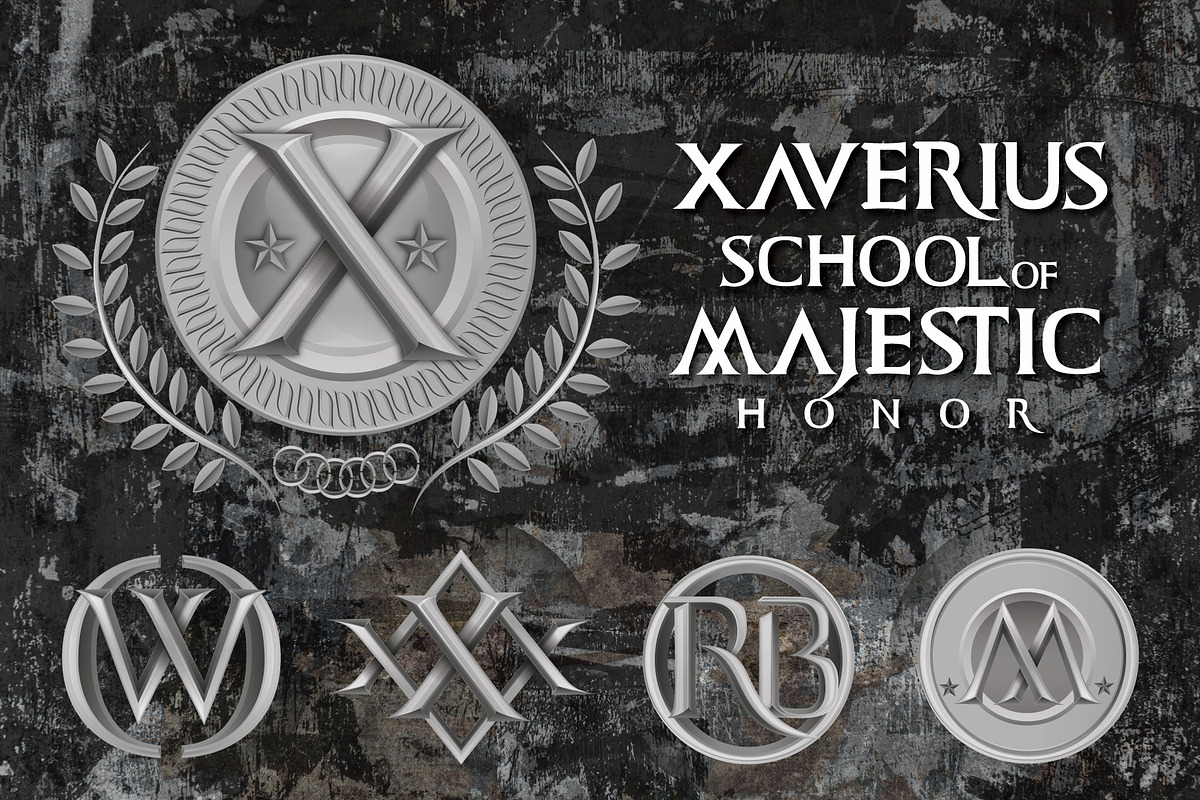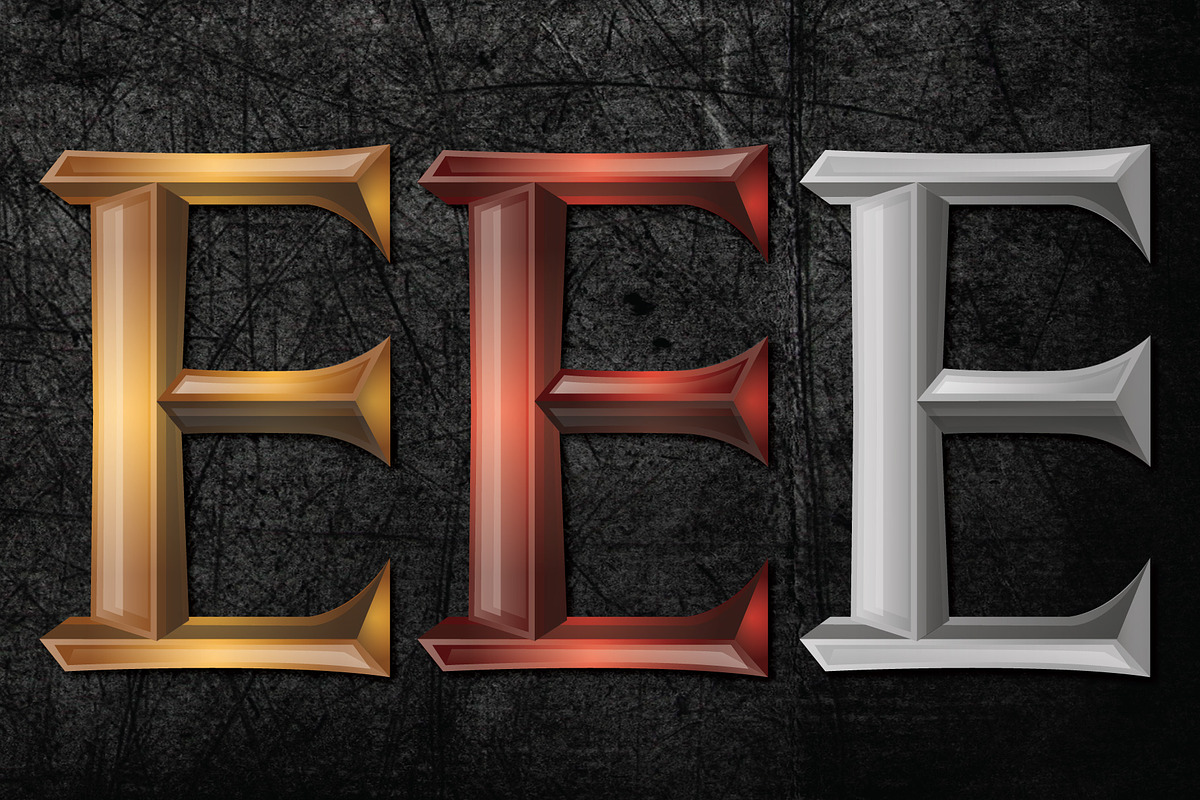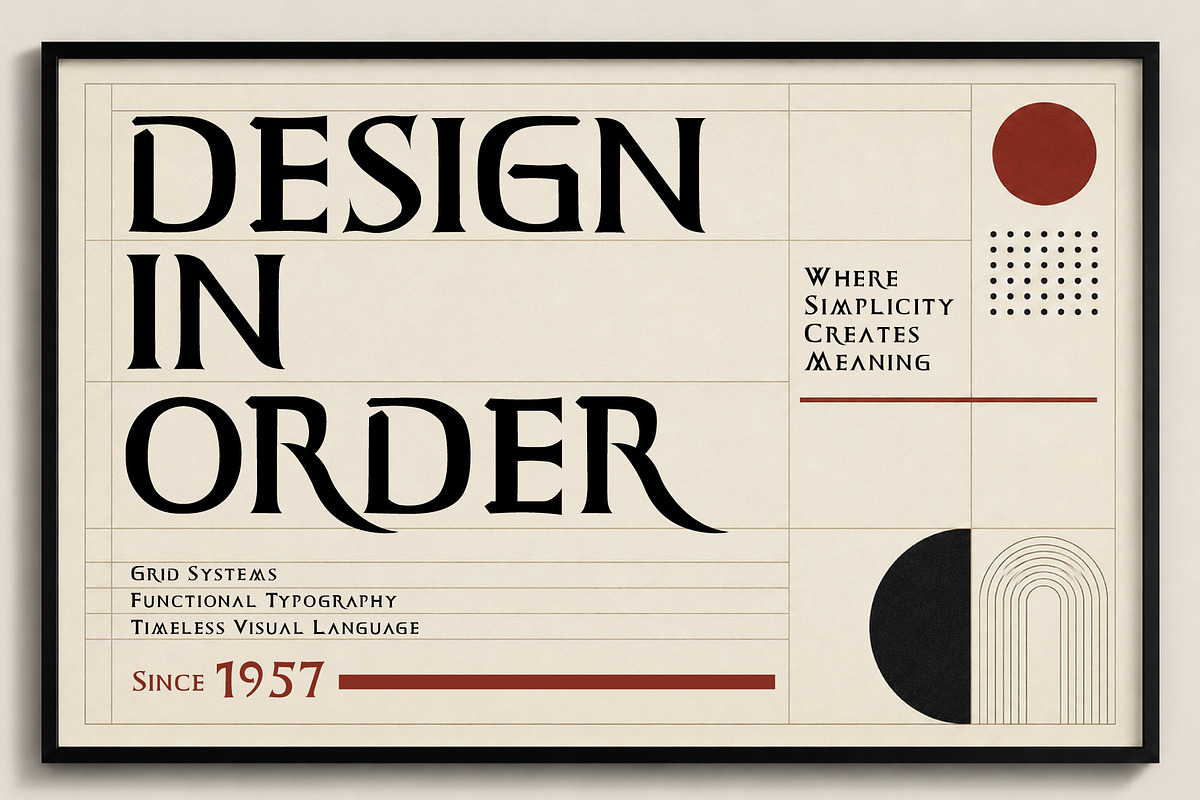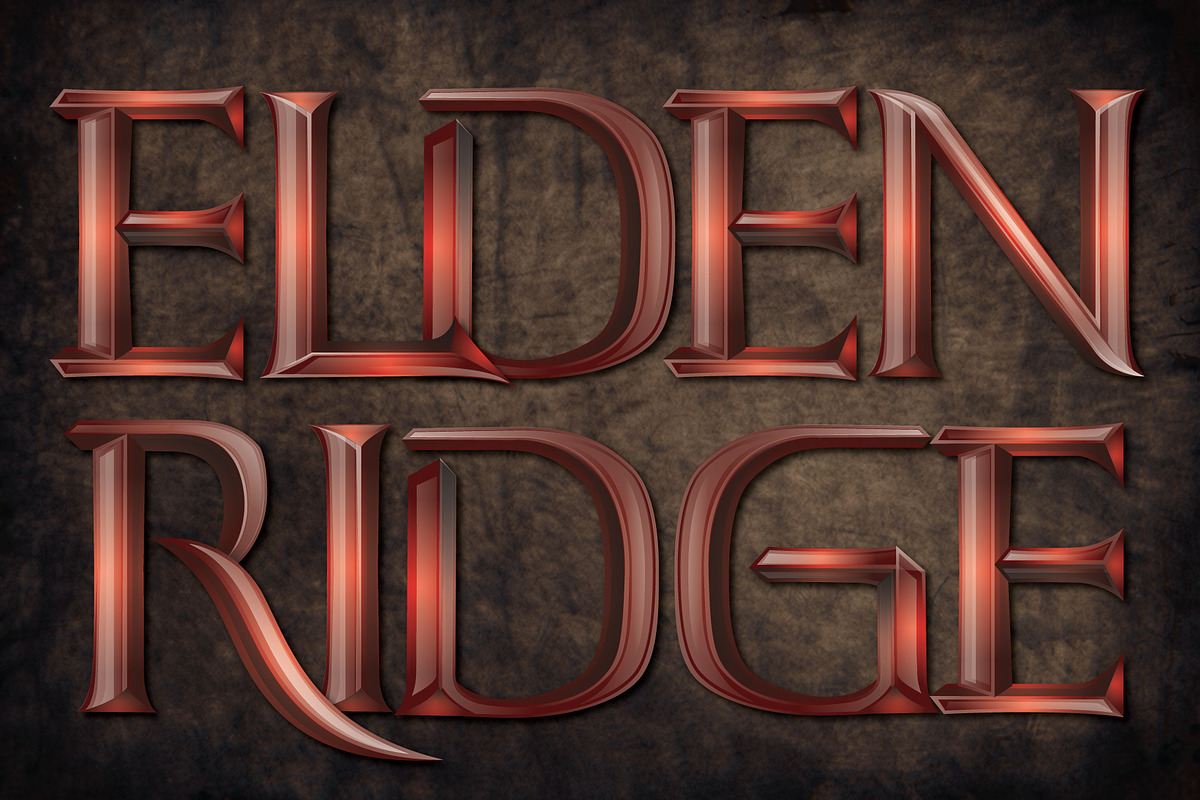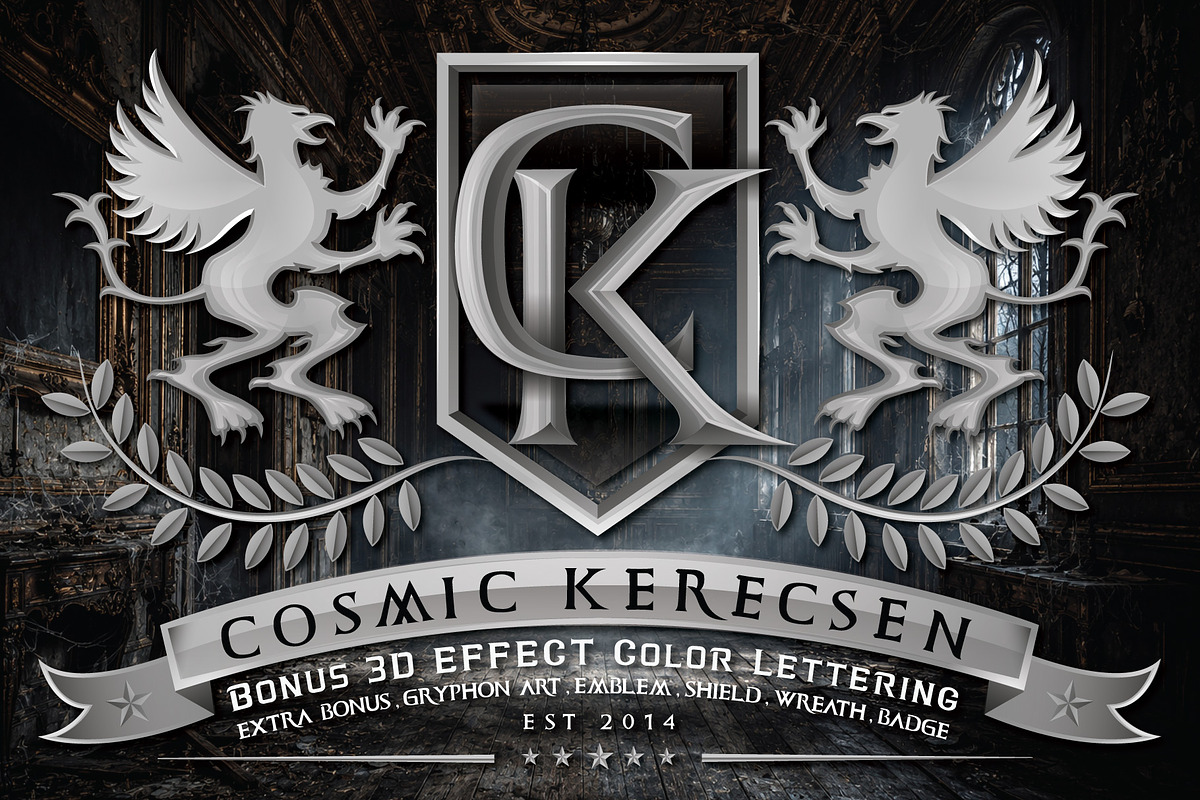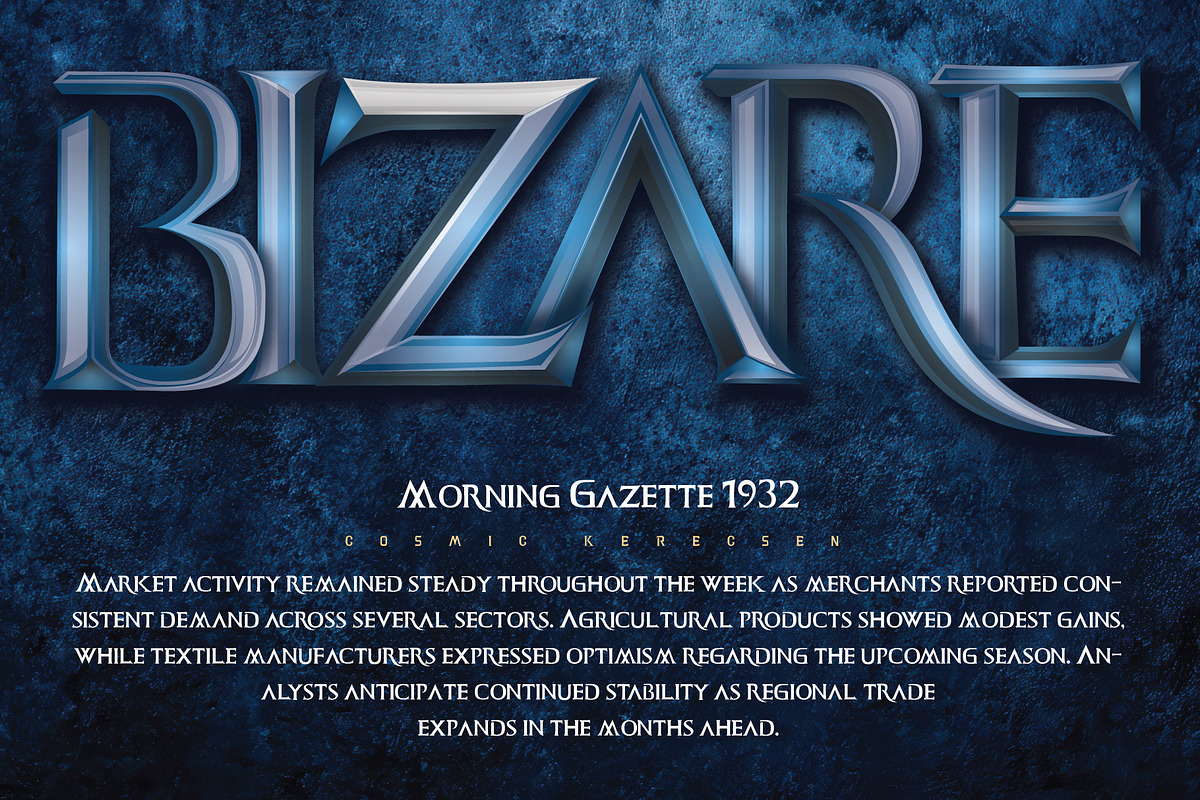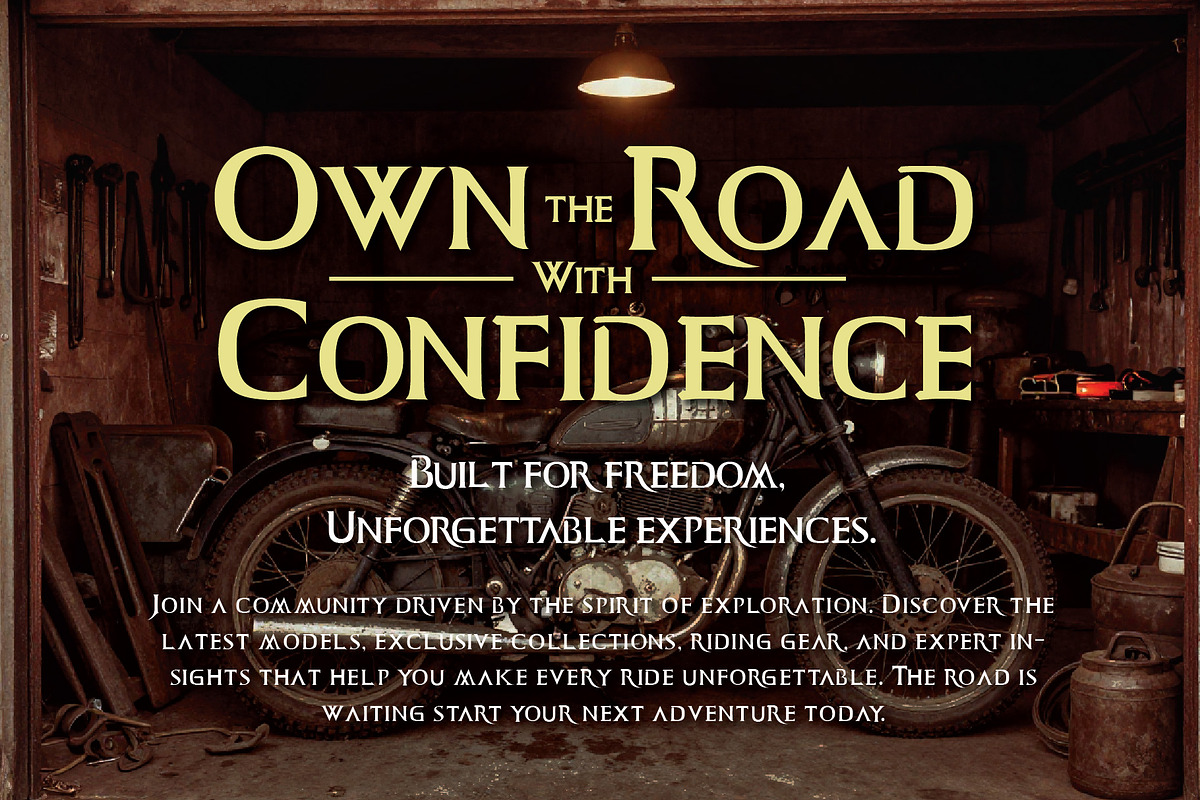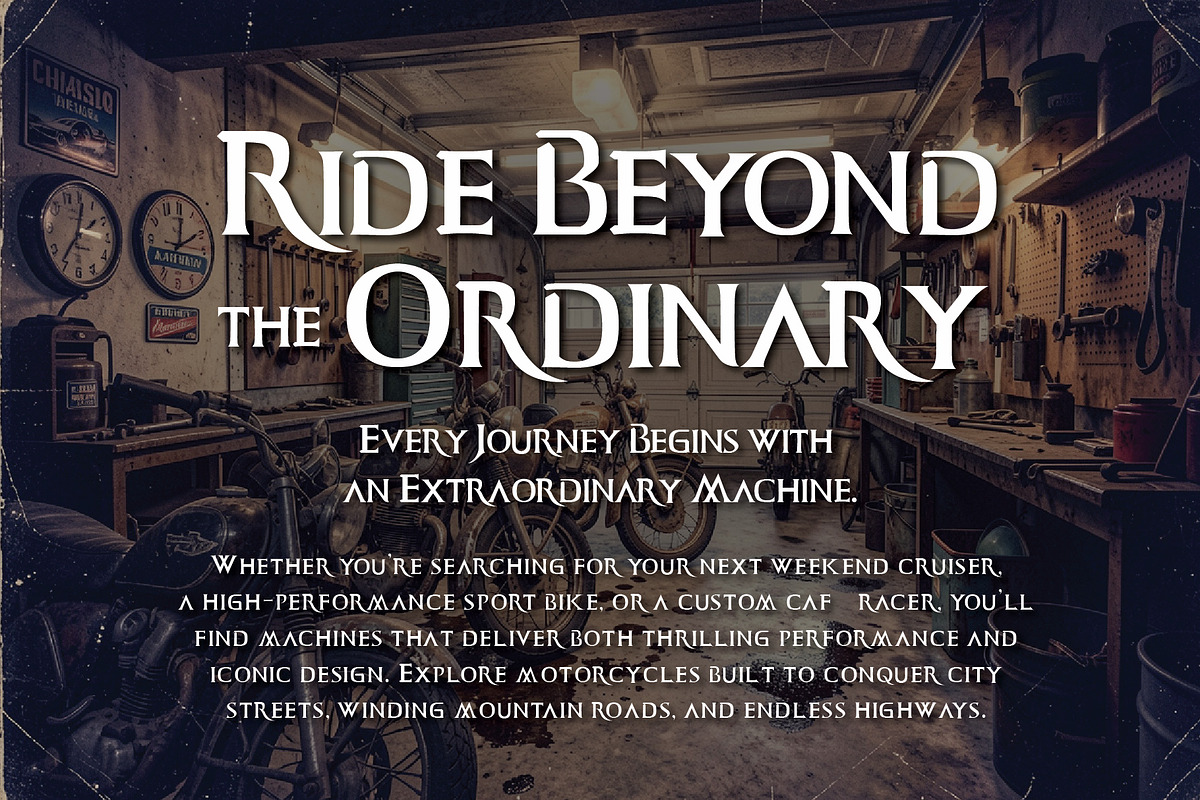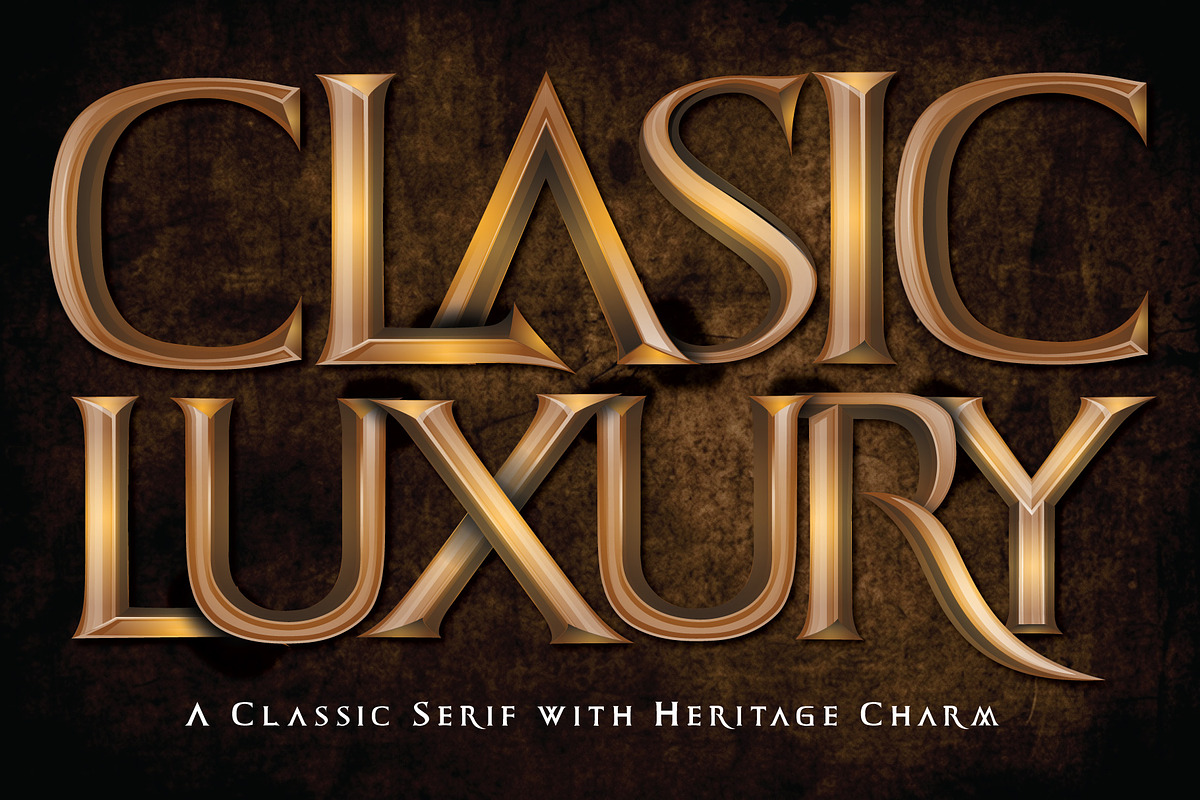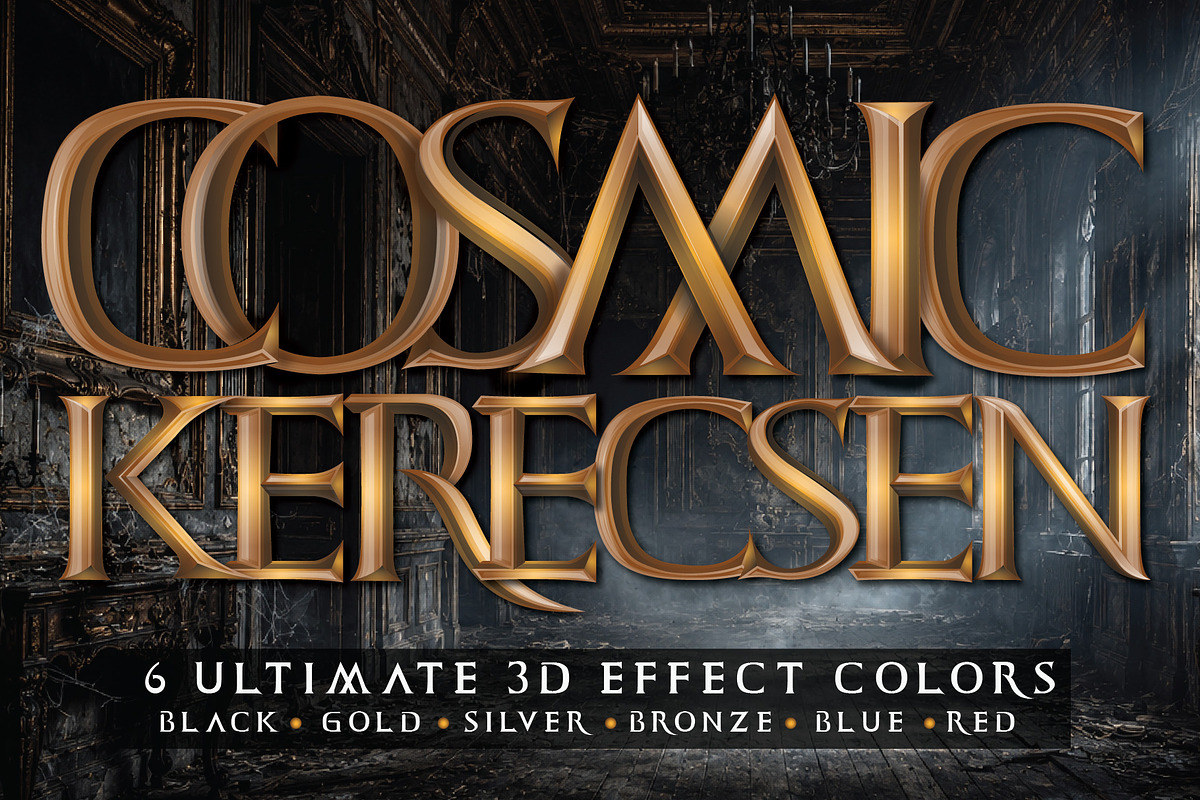
COSMIC KERECSEN - Classic Elegance
COSMIC KERECSEN is a premium classic serif font that embodies timeless elegance, refined craftsmanship, and distinguished heritage. Featuring graceful letterforms with balanced proportions and sophisticated details, this typeface is perfect for luxury branding, editorial design, fashion labels, packaging, logos, invitations, and upscale marketing materials.
Designed to deliver a prestigious and classy impression, COSMIC KERECSEN blends traditional serif beauty with modern versatility, making it an excellent choice for brands that value sophistication and authenticity.